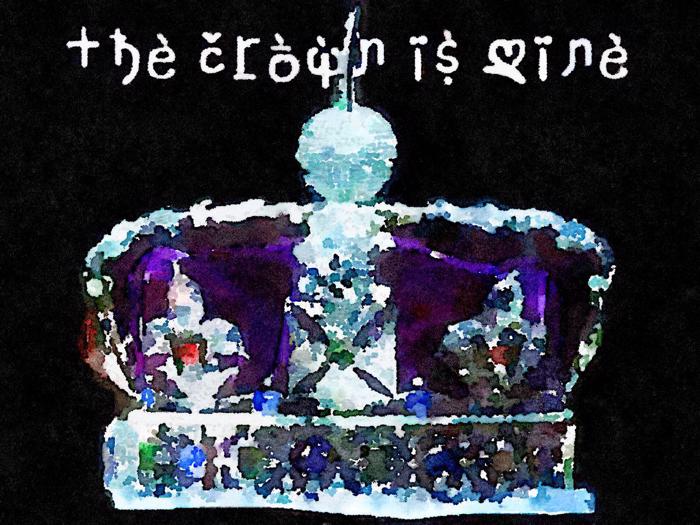
Thecrownismine Final Font
More info from TheCrownIsMine
I wanted to create a font that would evoke a scene where a crown and jewels were about to be stolen from a well guarded castle, centuries ago. This was my first font. I will create a thinner version in time to come.